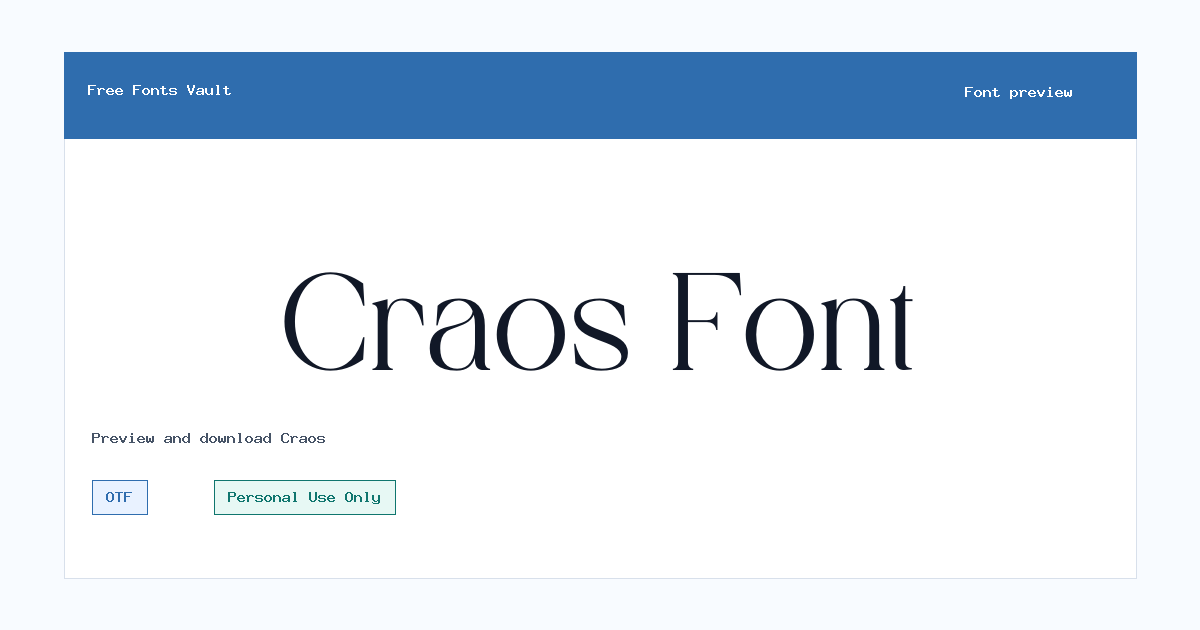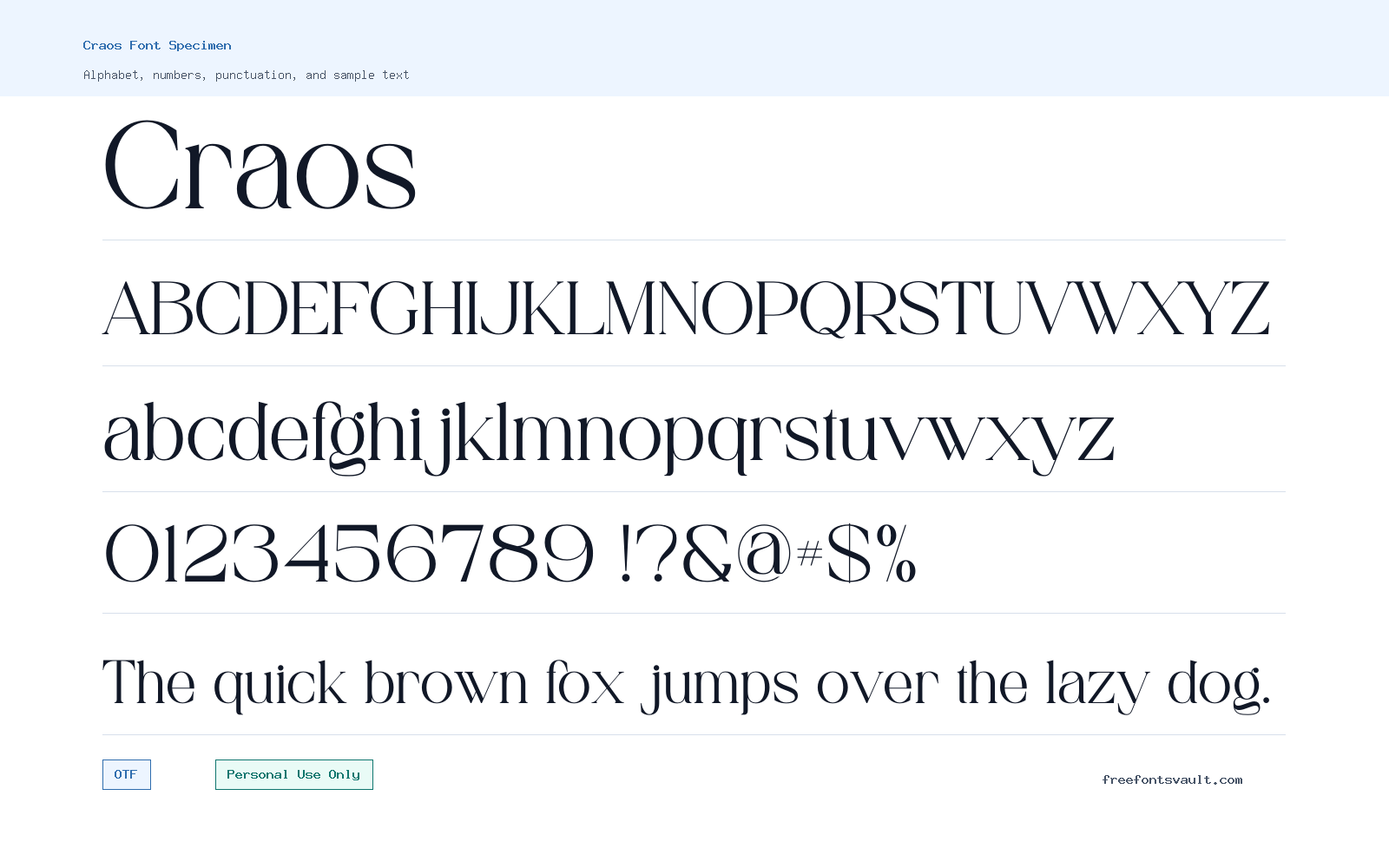
Craos
Craos is a serif display font by Biham Santoso with a personal-use license. It is best approached as a font for testing strong titles, visual branding concepts, poster text, and other short pieces of design where the type can be the main focus.
Craos gives designers a serif option for projects that need more character than a plain text face. Because the font is offered as a single regular OTF file, it is most useful when you want to try one clear style rather than build a large typography system around many weights. Use the preview area to test the exact words you plan to design with, especially if you are considering it for a logo draft, social media graphic, poster headline, album-style title, packaging mockup, or display banner. Serif display fonts can change a lot from word to word, so the spacing, letter shapes, and overall rhythm should be checked with your real text before you commit to a layout.
For logo work, Craos is better suited to early concepting, personal projects, and non-commercial presentations unless you secure the correct license for final commercial use. Try it in short names, initials, or two-word marks rather than long paragraphs. If the design needs small text, navigation labels, captions, or body copy, pair Craos with a simpler sans serif or readable text serif so the display lettering does not have to do every job. In posters and web mockups, give the font enough space and contrast so the letter details remain clear. It can work well as a focal typeface, but it should be tested at the actual size and background color you plan to use.
A good way to evaluate Craos is to type a few different kinds of samples: your project name, a short headline, an all-caps phrase, a mixed-case phrase, and a number or date if your design needs one. Look at how the capital letters sit together, whether the spacing feels balanced, and whether any letter combination needs manual kerning. Display fonts often benefit from small spacing adjustments, especially in logos and large poster titles. If the preview feels too busy in a full sentence, keep Craos for the main word and move supporting text into a quieter companion font.
- Serif display style suited to short titles and visual identity concepts
- Useful for previewing logo drafts, poster headlines, social graphics, and web layout mockups
- Works best when paired with a simpler font for body copy, captions, menus, or supporting text
- Logo concepts for personal or non-commercial projects
- Poster headlines and event-style title layouts
- Social media graphics with short, prominent wording
- Editorial-style cover mockups and title treatments
- Branding explorations where a serif display voice is needed
- Website hero mockups that use a strong headline with simple supporting text
Use Craos for short, high-impact text rather than long reading passages. Test your exact wording in the preview, check spacing at the final size, and pair it with a clean supporting font when your layout needs body copy or smaller interface text.
Craos is better for short display text such as names, headlines, and titles. For paragraphs or small text, pair it with a more neutral and readable font.